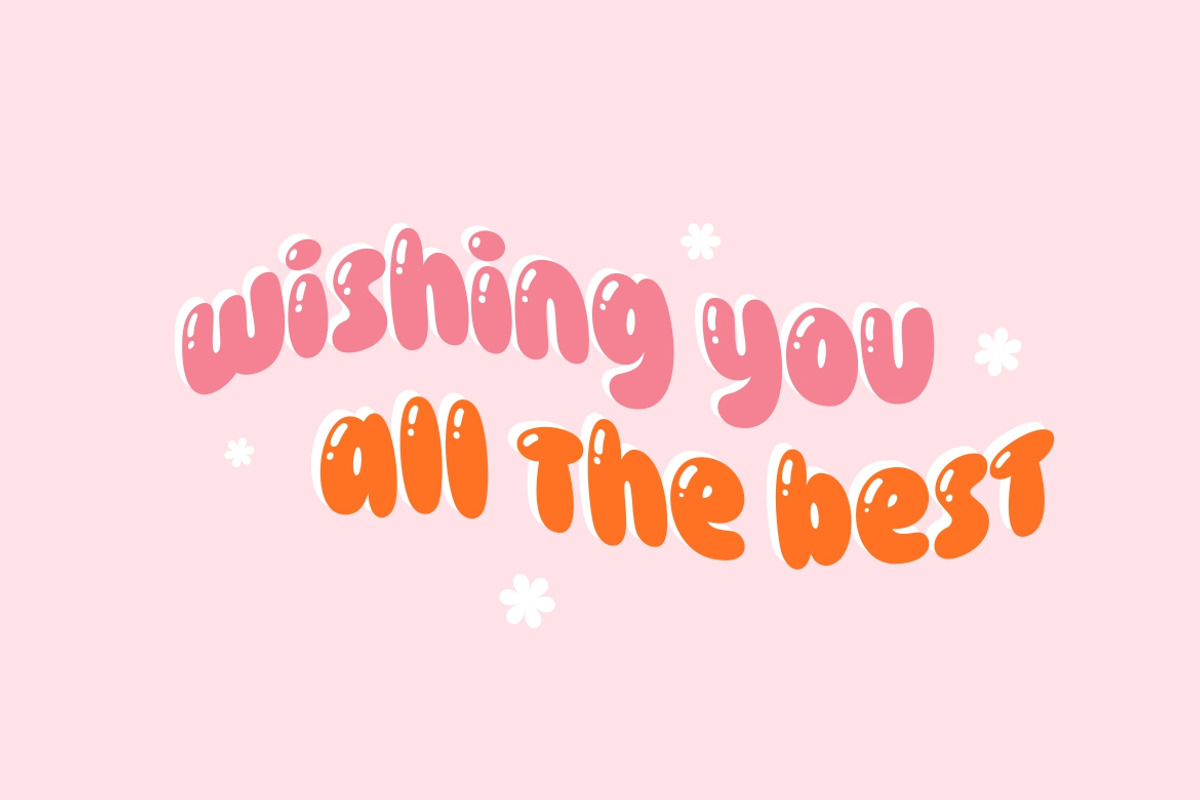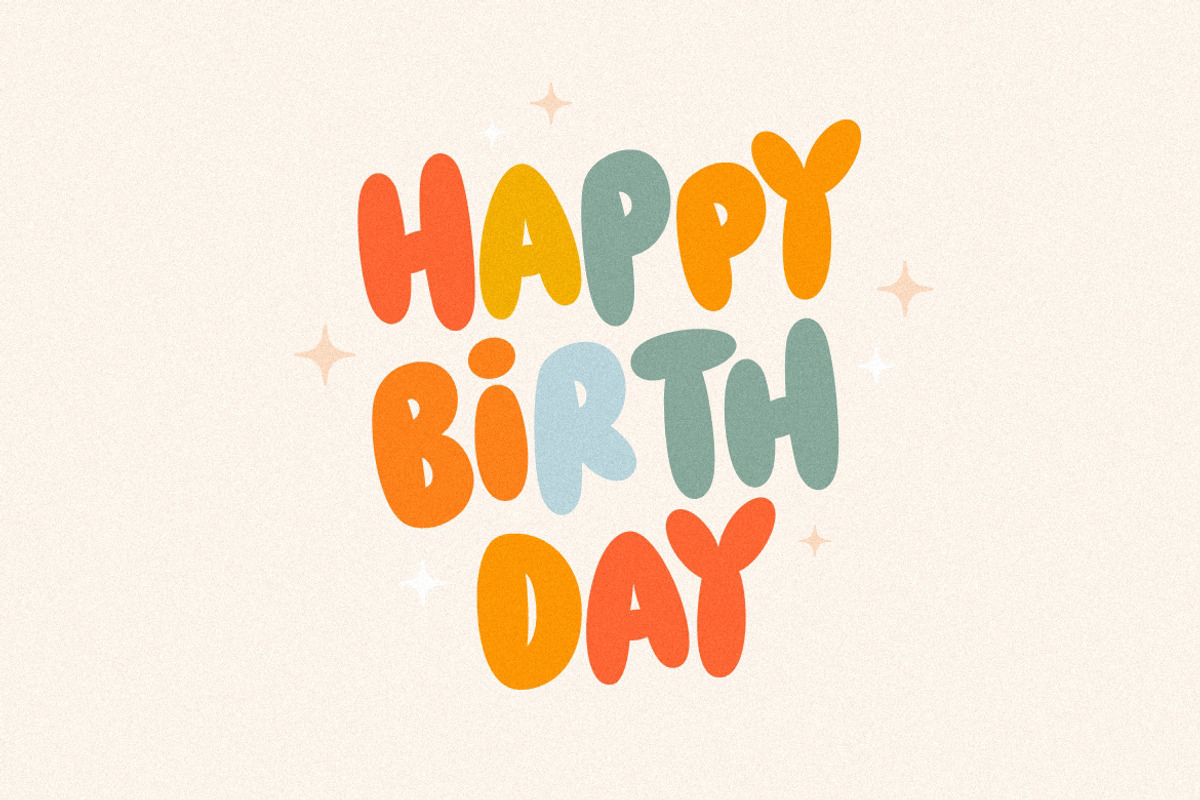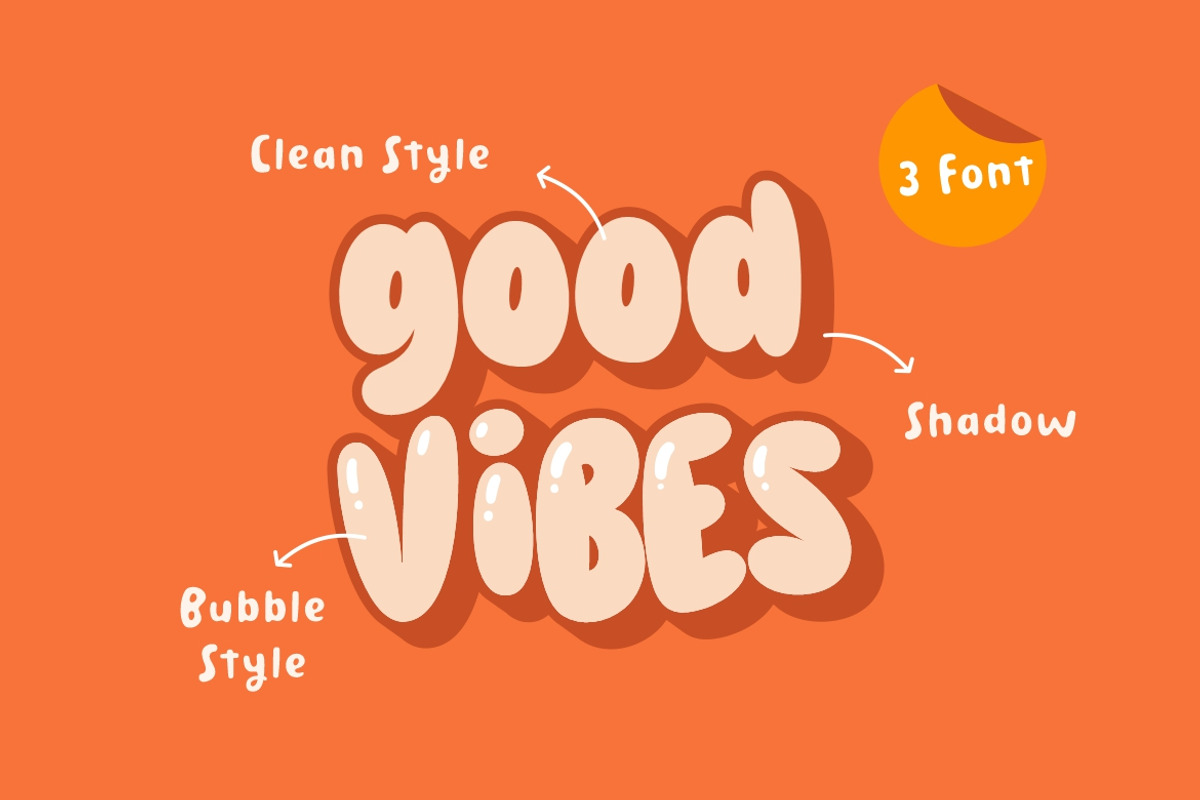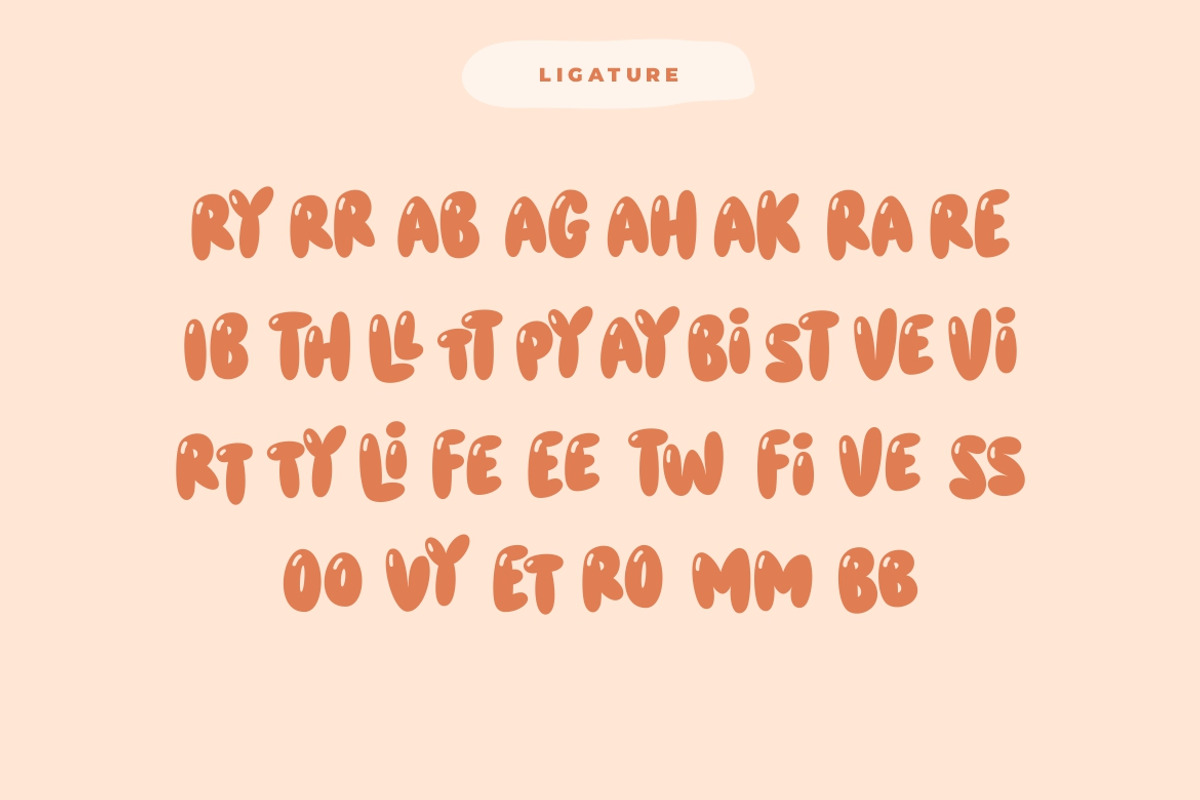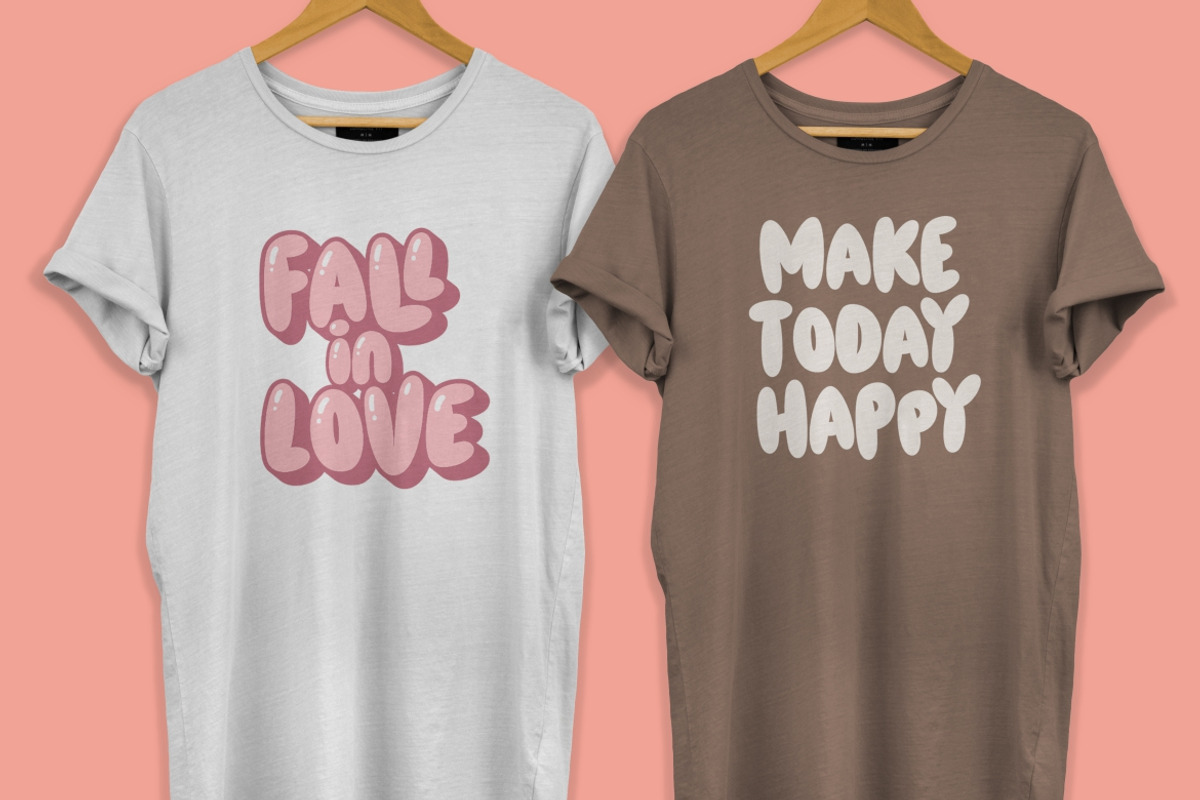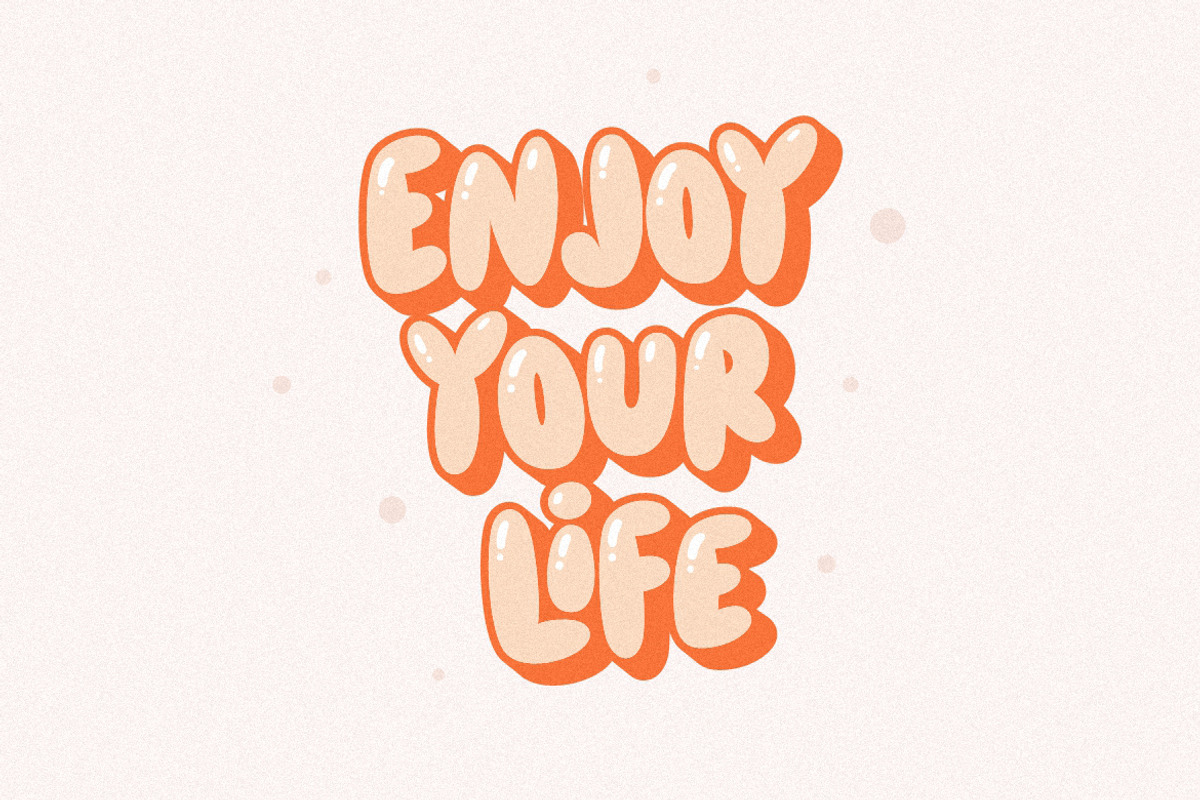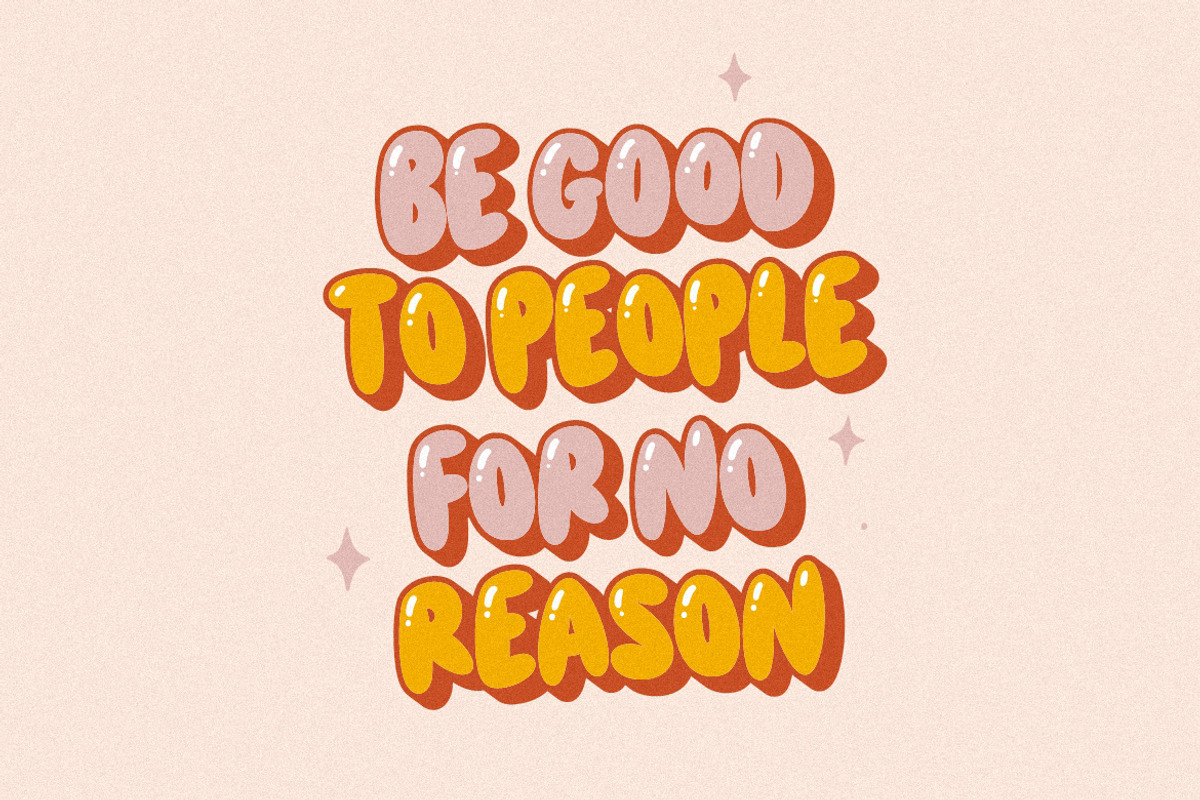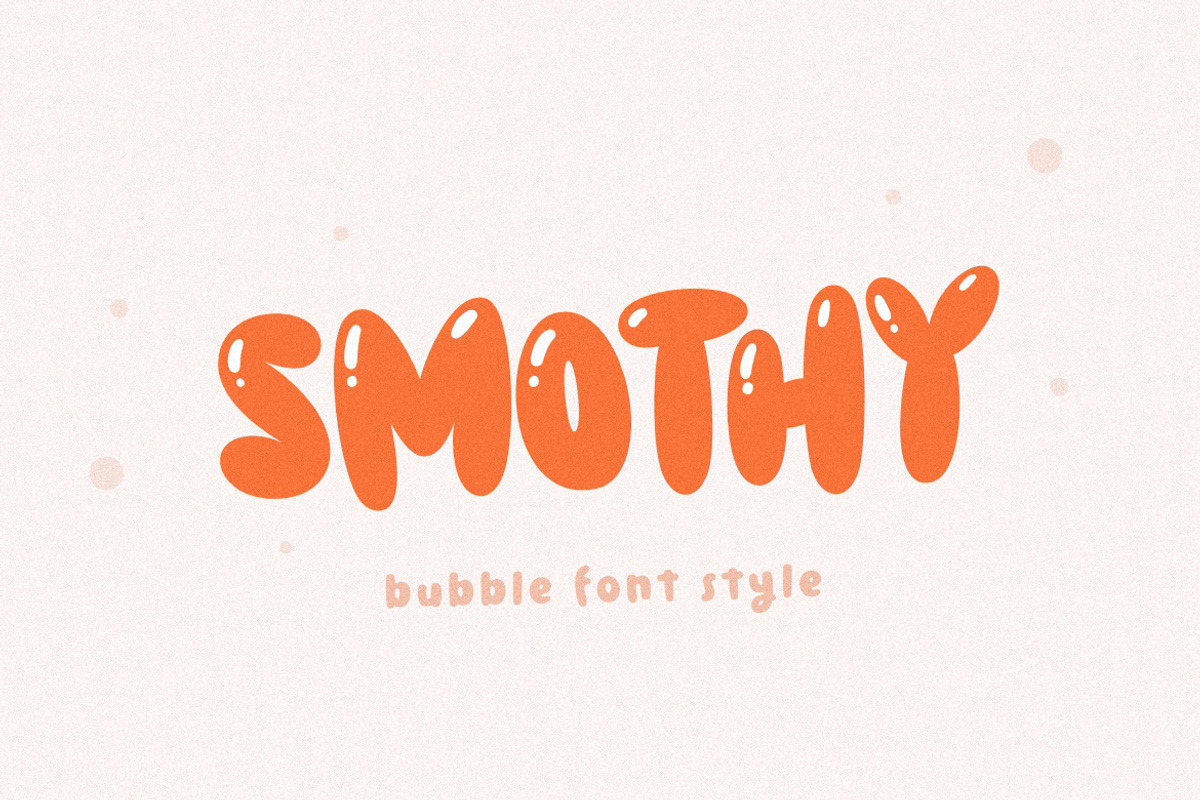
Smothy - Bubble Font Style
Smothy is a cute and fun display font with bubble style. You will get three types of fonts in this pack, Regular, Bubble and Shadow version. Use this display font to add that special bubble touch to any design idea you can think of!
Very suitable for logotype, Stickers, Packaging design, Cricut Project, headlines, brand identity, t shirt or apparel industry, posters, magazines, books, YouTube, Instagram, websites, or any of your creative design projects.